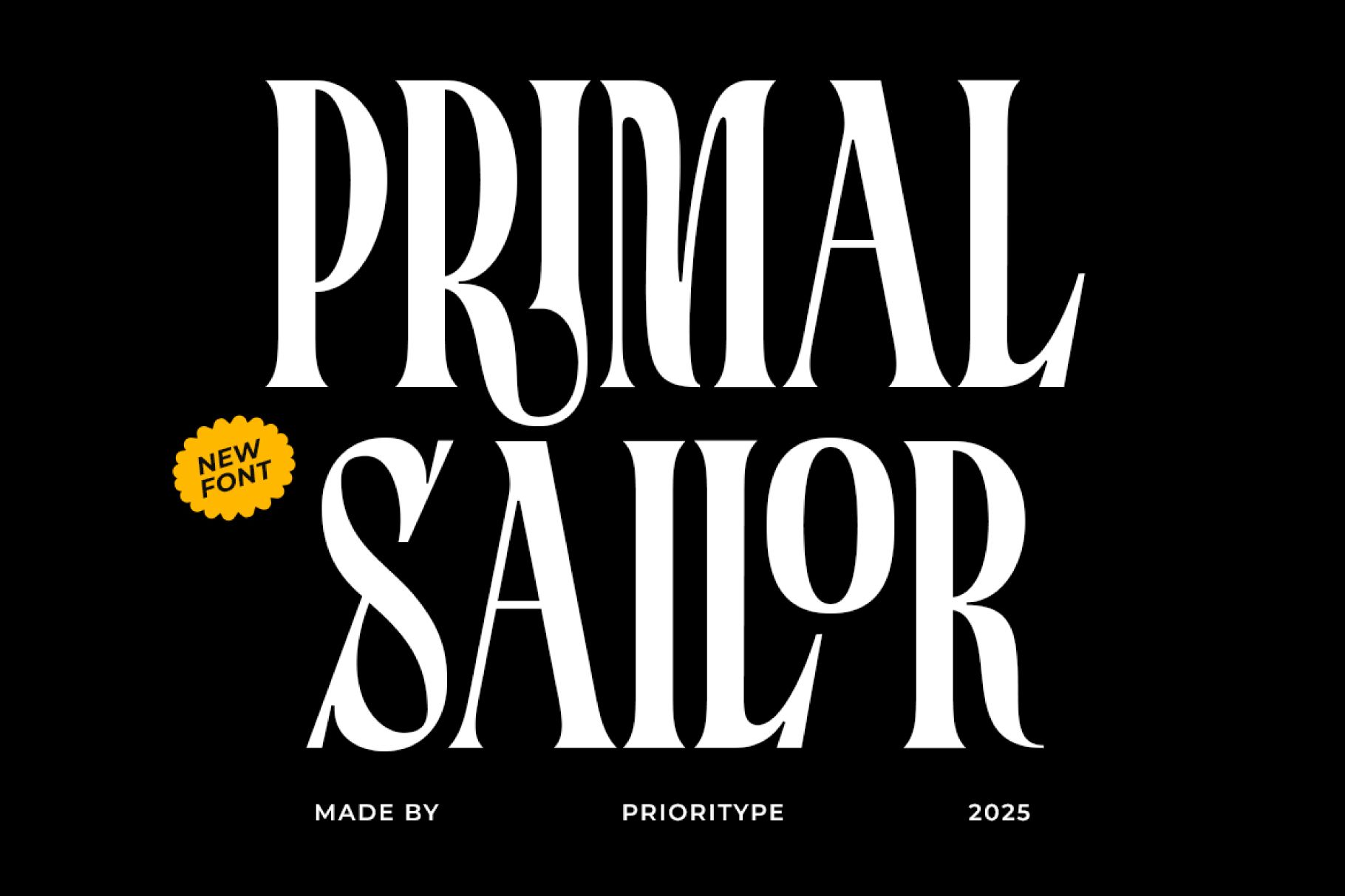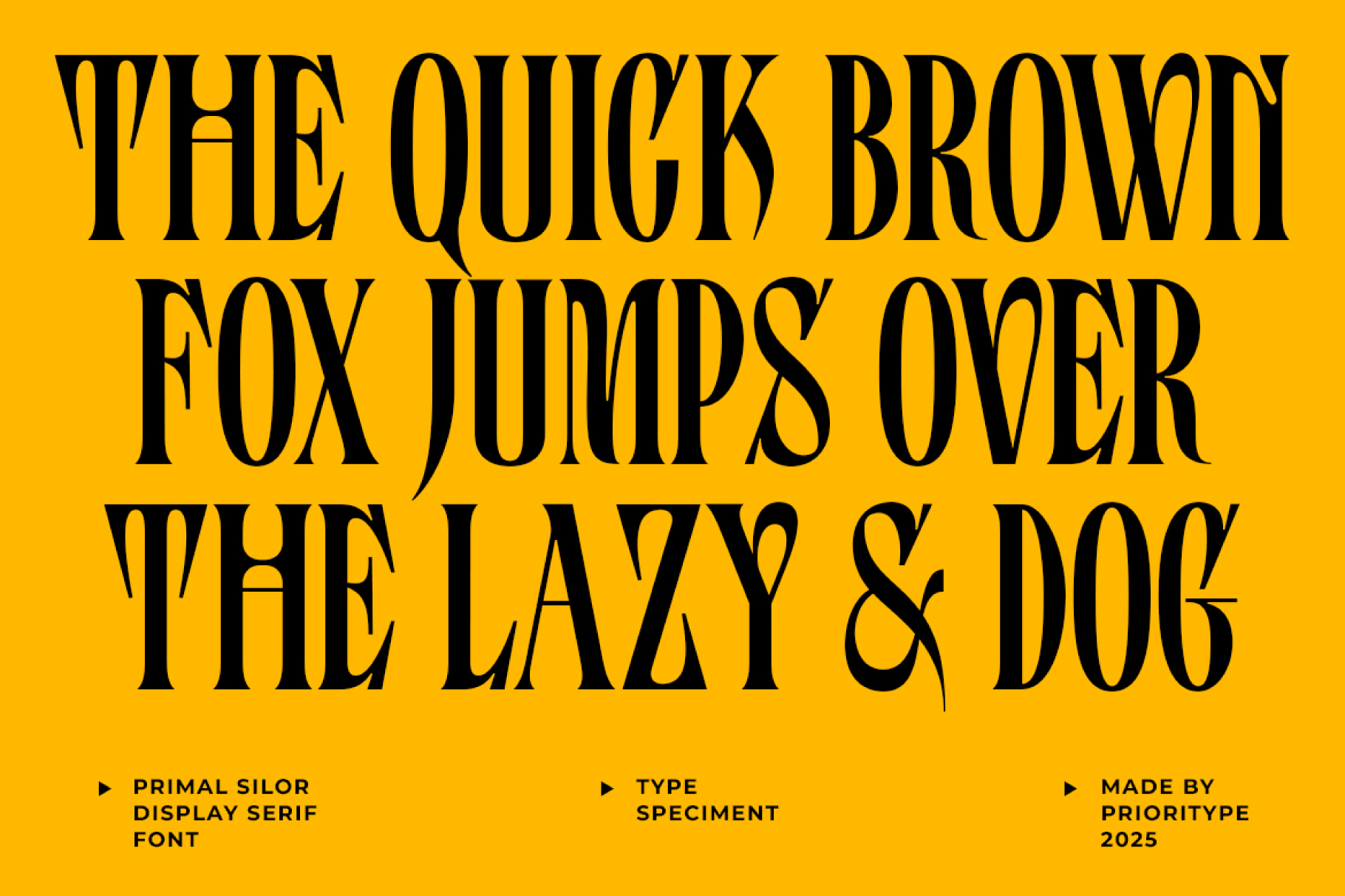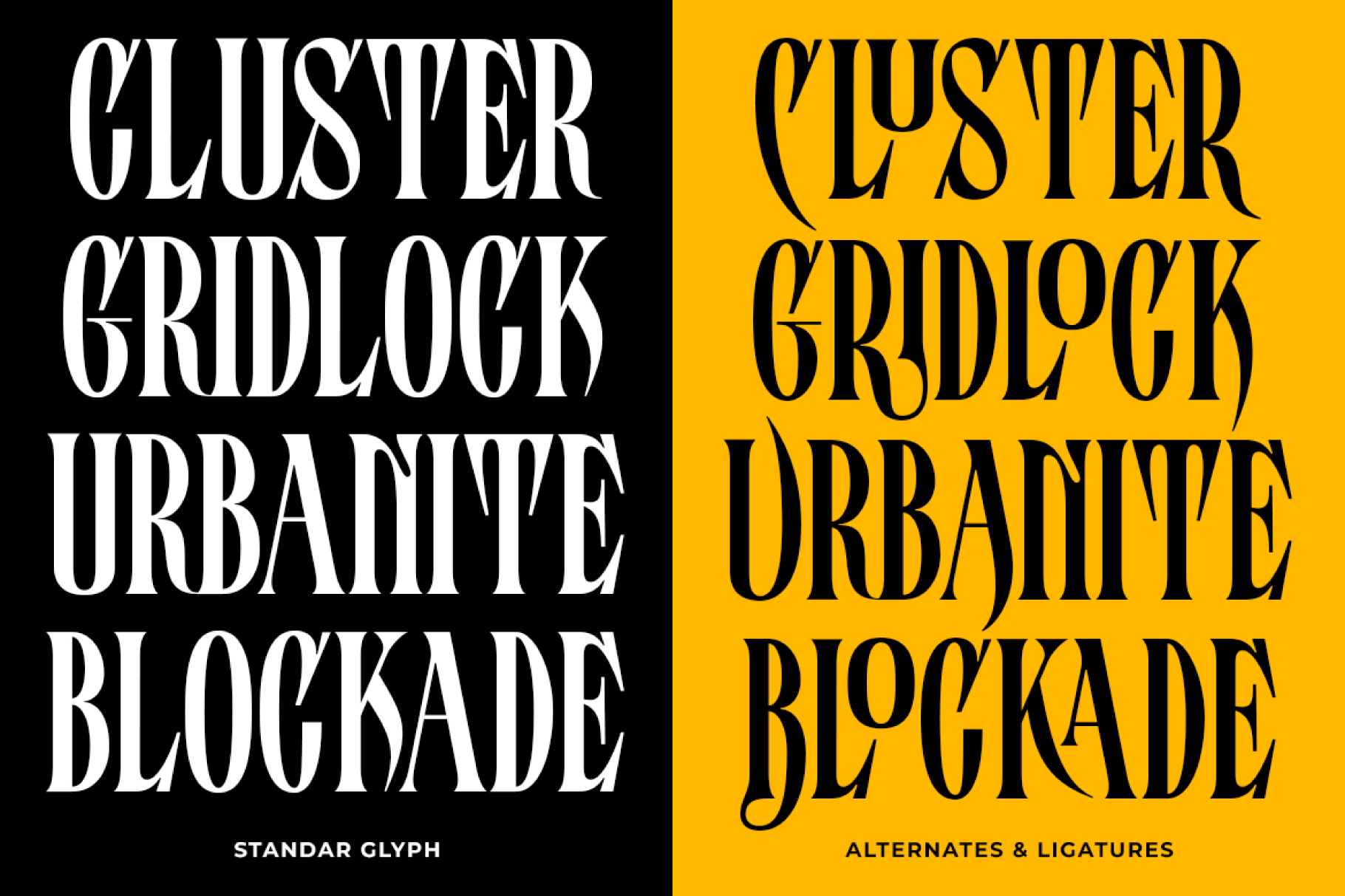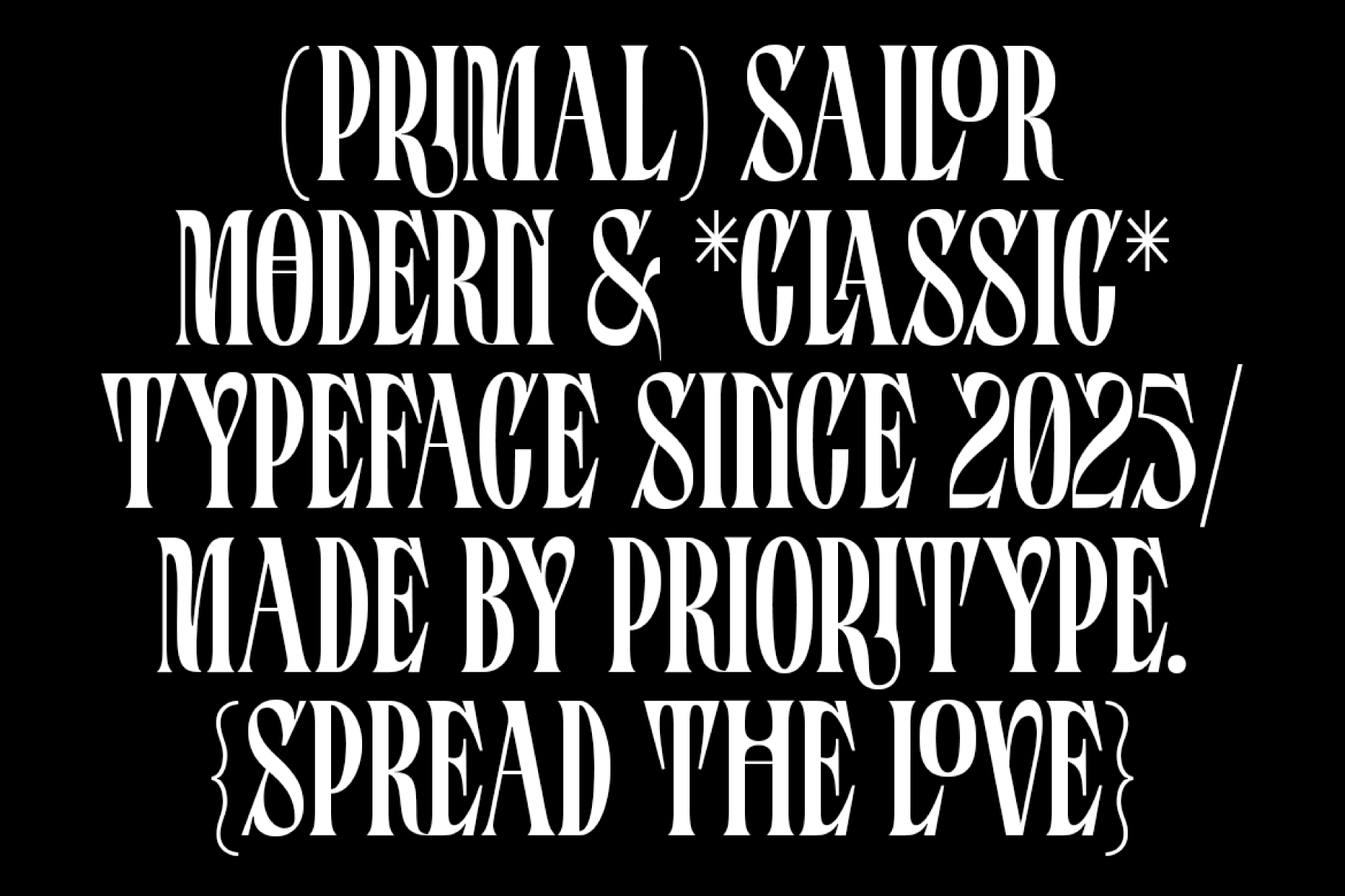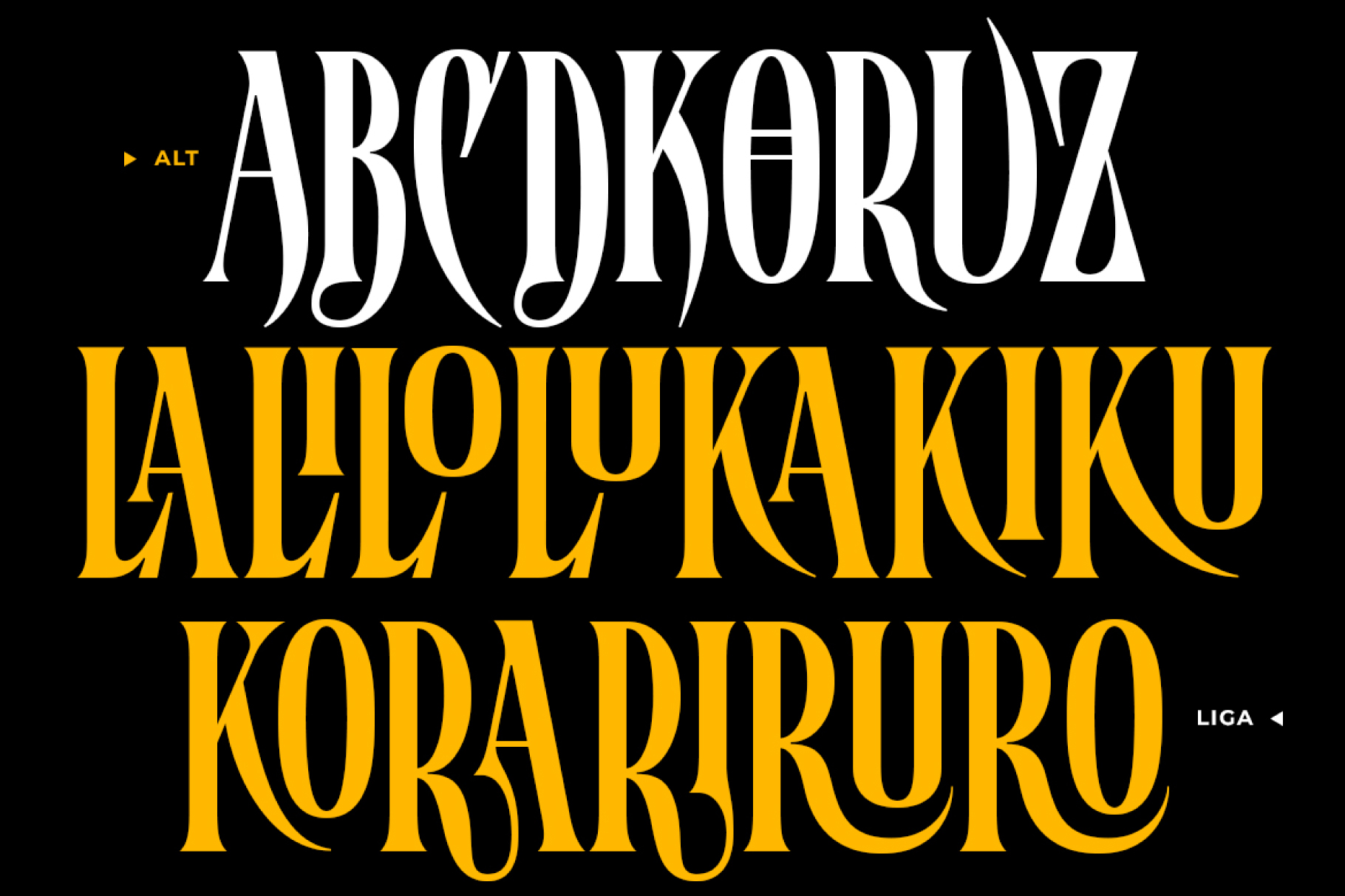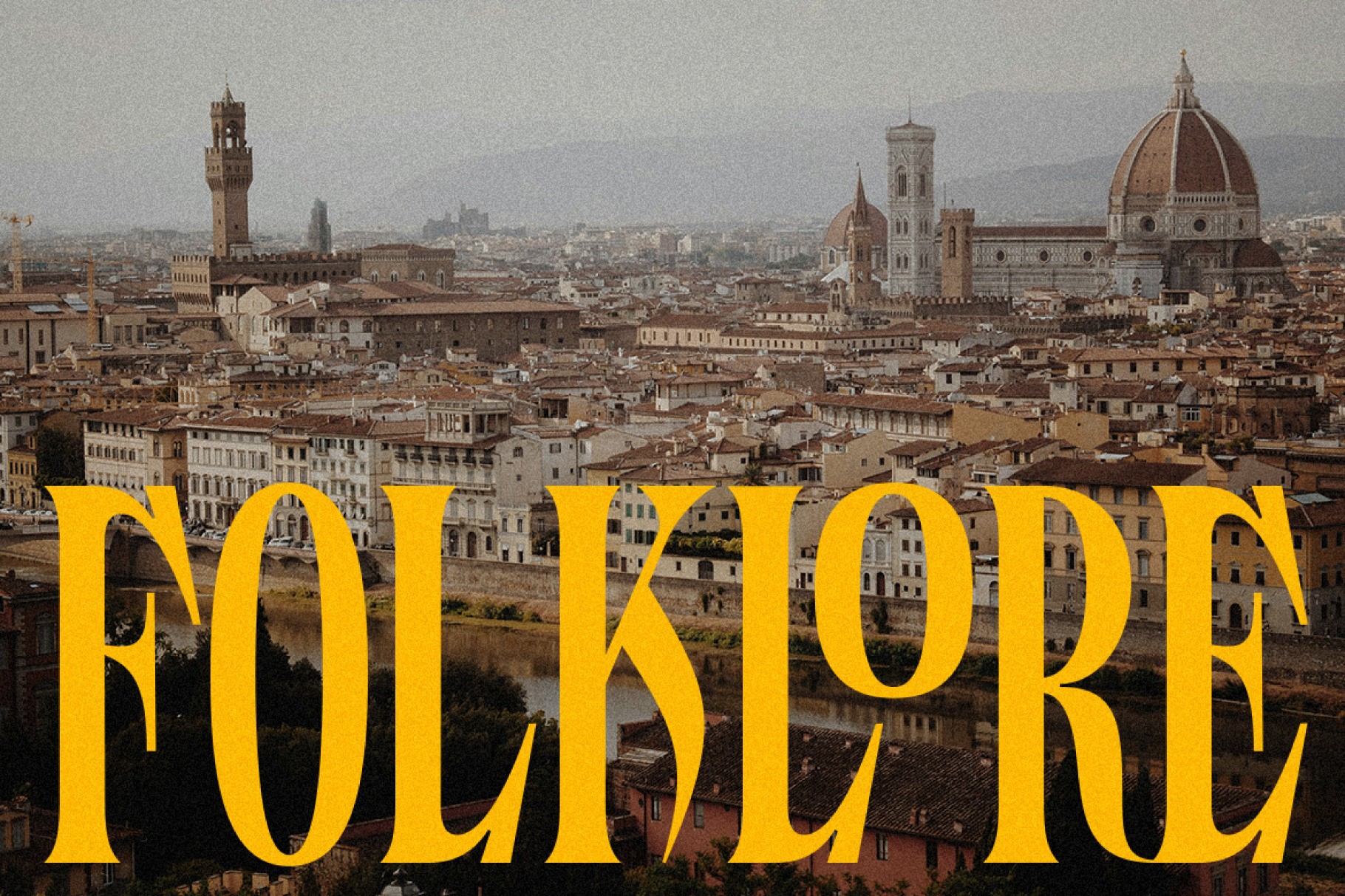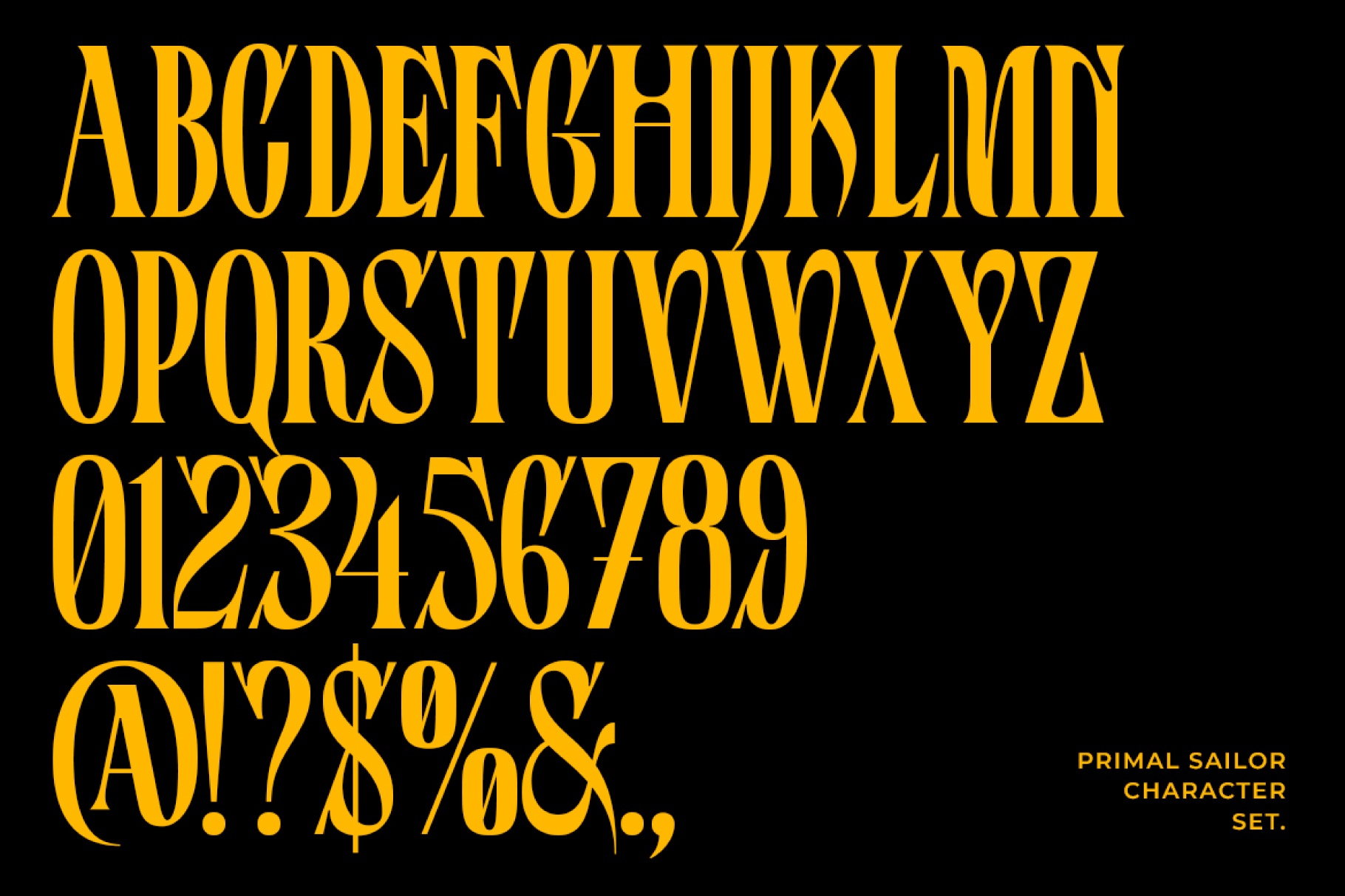
Primal Sailor Font
Primal Sailor
Primal Sailor is a condensed display serif with a bold, striking, and commanding presence. Its sleek yet prominent letterforms exude elegance and strength, making it an excellent choice for posters, branding, logos, and various creative projects that demand a dynamic and authoritative look.
Designed to captivate, this typeface features robust proportions and sharp serif details, blending modern aesthetics with timeless appeal. Primal Sailor is more than just a font—it’s a visual statement that elevates your designs with confidence and impact.